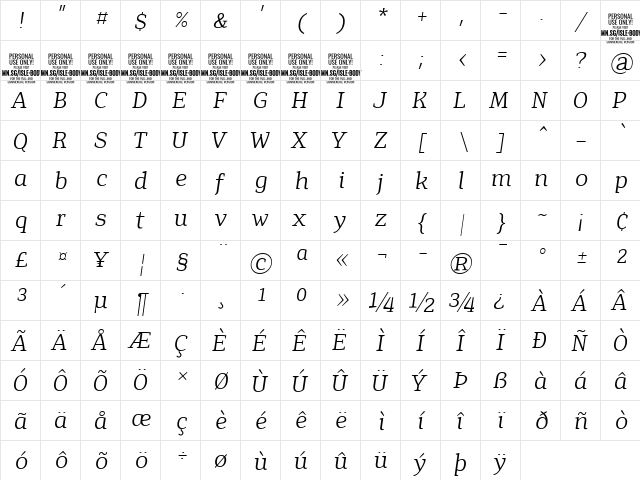
Isle Body PERSONAL USE Light Italic Font Preview
| Style | Light Italic |
| Foundry | Mans Greback |
| Designer | Mans Greback |
Design Context for Isle Body PERSONAL USE Typeface
Isle Body PERSONAL USE offers clean, dependable letterforms without strong stylistic allegiance, making it a practical choice for designers who need flexibility. The dynamic lean of this cut emphasises speed and emphasis in any layout. Its slender proportions lend an understated elegance to any composition.